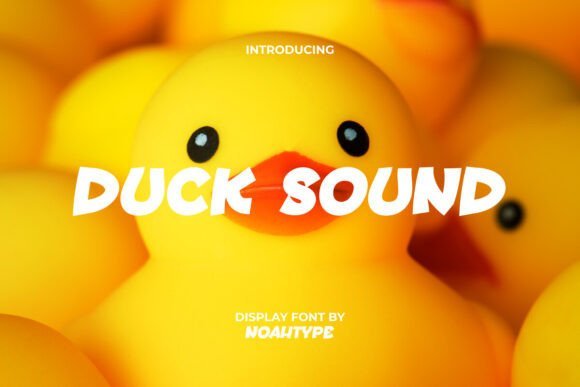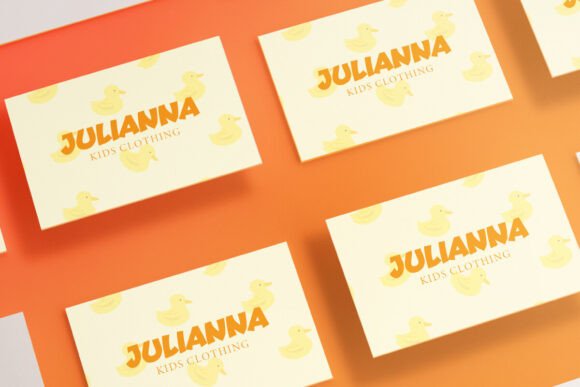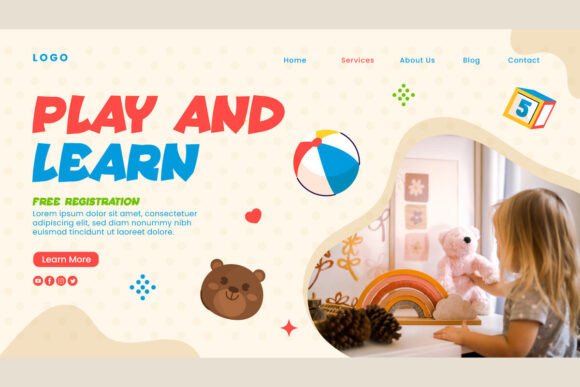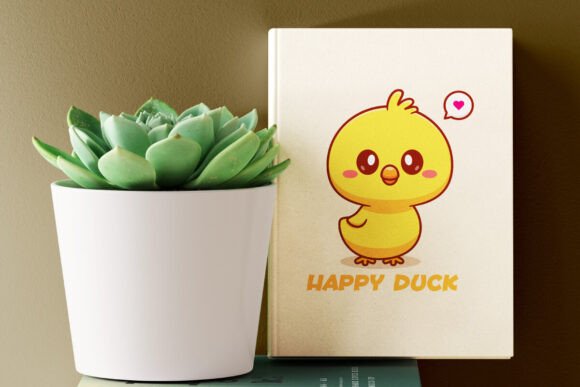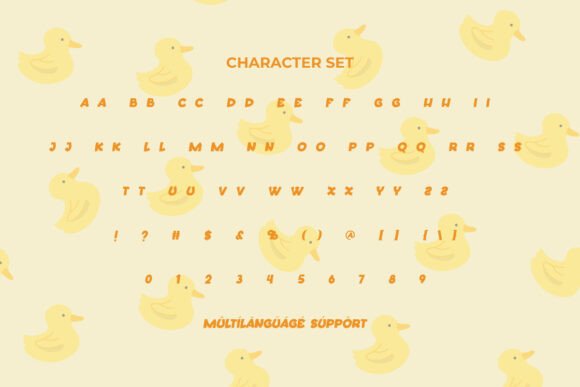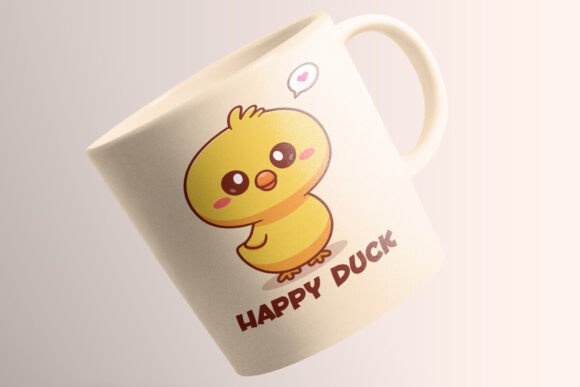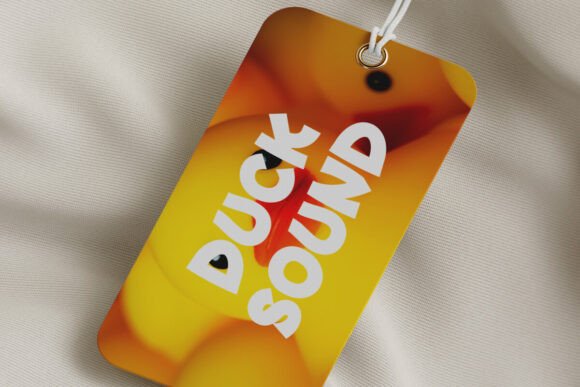
Quacking Up a Storm: Introducing Duck Sound Font
Have you ever been working on a design project and felt like something was missing – a spark of personality, a dash of whimsy? You know that feeling when you need a font that’s more than just a font, but a statement piece that sets your design apart from the rest?
That’s where Duck Sound Font comes in – a playful, bold, and fun sans serif display font designed to bring your designs to life. With its unique shape and bold letters, Duck Sound Font is the perfect addition to any project, from brand image to custom design, and everything in between.
As a designer, you know how hard it can be to find the right font to match your creative vision. That’s why Duck Sound Font is a valuable asset in your design toolkit – it’s versatile, eye-catching, and guaranteed to quack up a storm in any design project.
Duck Sound Font Key Features
- Unique Quack Sound: The Duck Sound Font features an embedded quack sound effect that can be triggered using a specific key combination, adding an interactive element to your designs.
Duck Sound Font Review
Overall, I’m quite impressed with the Duck Sound Font! ✨ It’s a fun and quirky addition to any project that needs a bit of whimsy. The font’s playful design and varied character set make it perfect for creating engaging animations, ads, or even music-related content.
Here are some of the things I like about this font:
- Unique and creative design that sets it apart from other fonts.
- Excellent for use in animations, videos, or other motion graphics.
- Supports a wide range of characters, including various symbols and icons.
- Not ideal for use in large blocks of text, as it can become overwhelming.
- Lacks support for some advanced typography features, such as ligatures or opentype.
- Not suitable for formal or professional projects, as it’s quite playful and casual.
Overall, I think the Duck Sound Font is a great addition to any designer’s toolkit, especially for projects that need a bit of flair. While it may have some limitations, its unique design and versatility make it a valuable asset for creatives looking to add some personality to their work.
Here are some tips to help you get the most out of the Duck Sound Font:
- Use it sparingly to add a touch of whimsy and fun to your designs.
- Pair the Duck Sound Font with other playful fonts or graphics for a cohesive look.
The Duck Sound Font is perfect for: